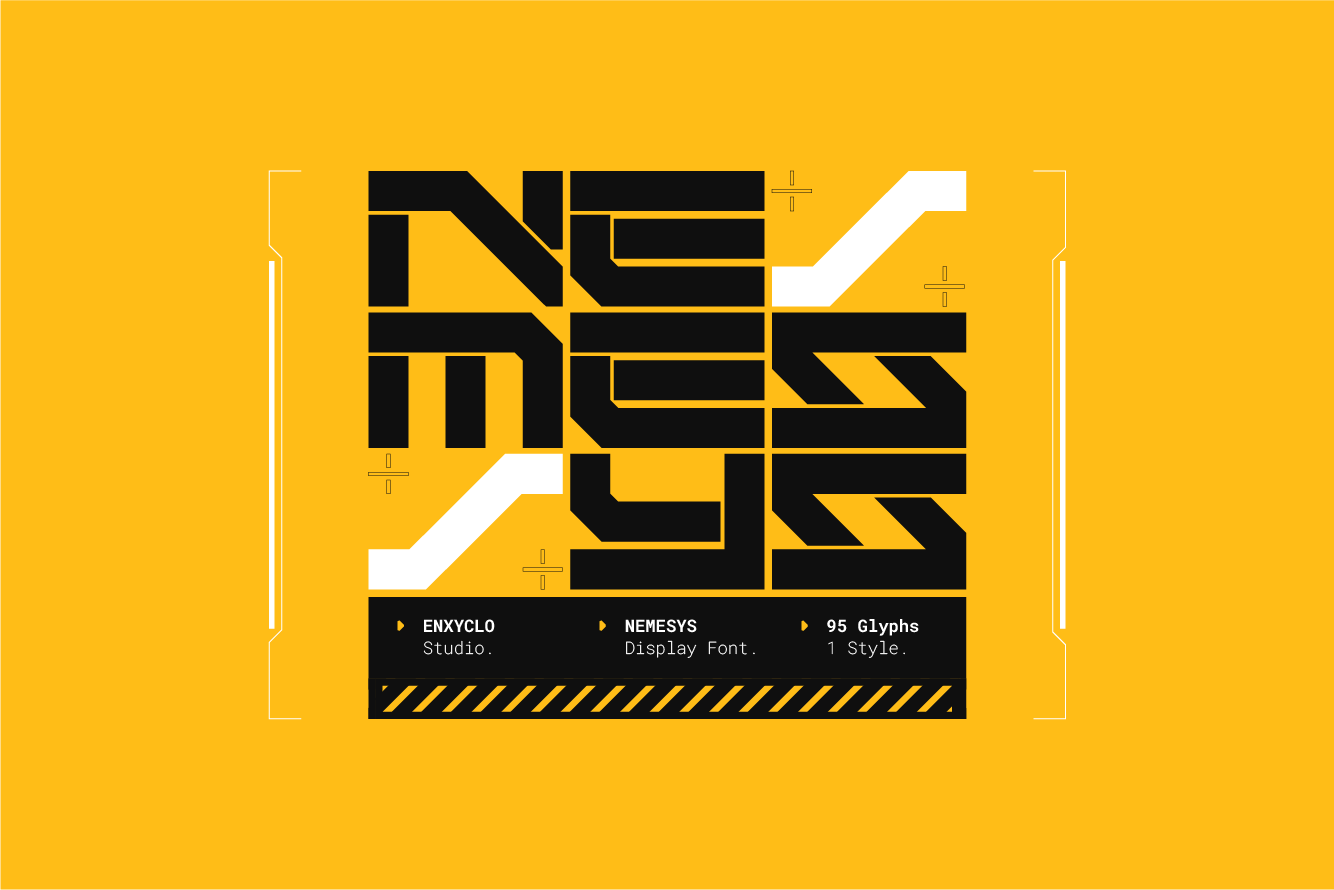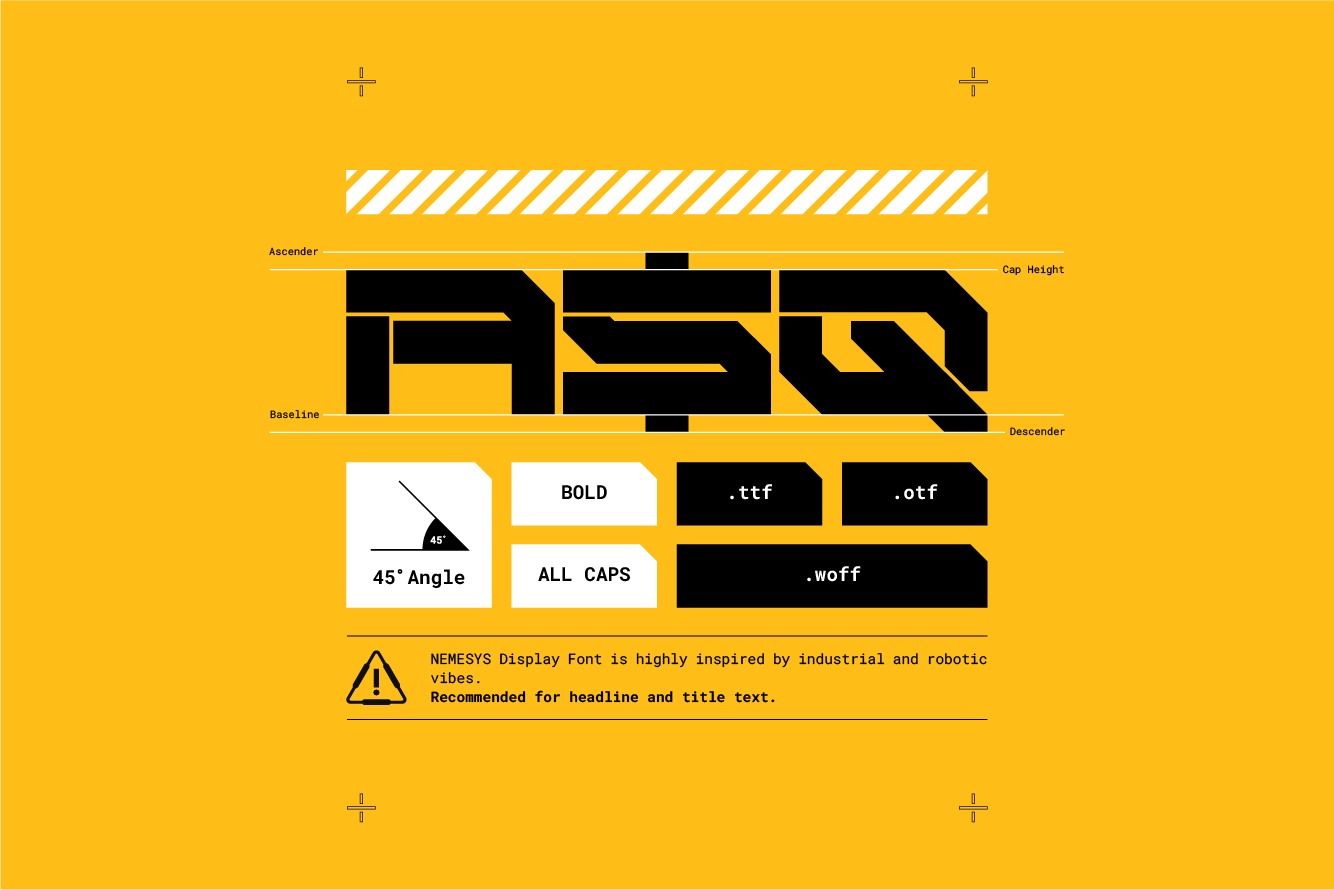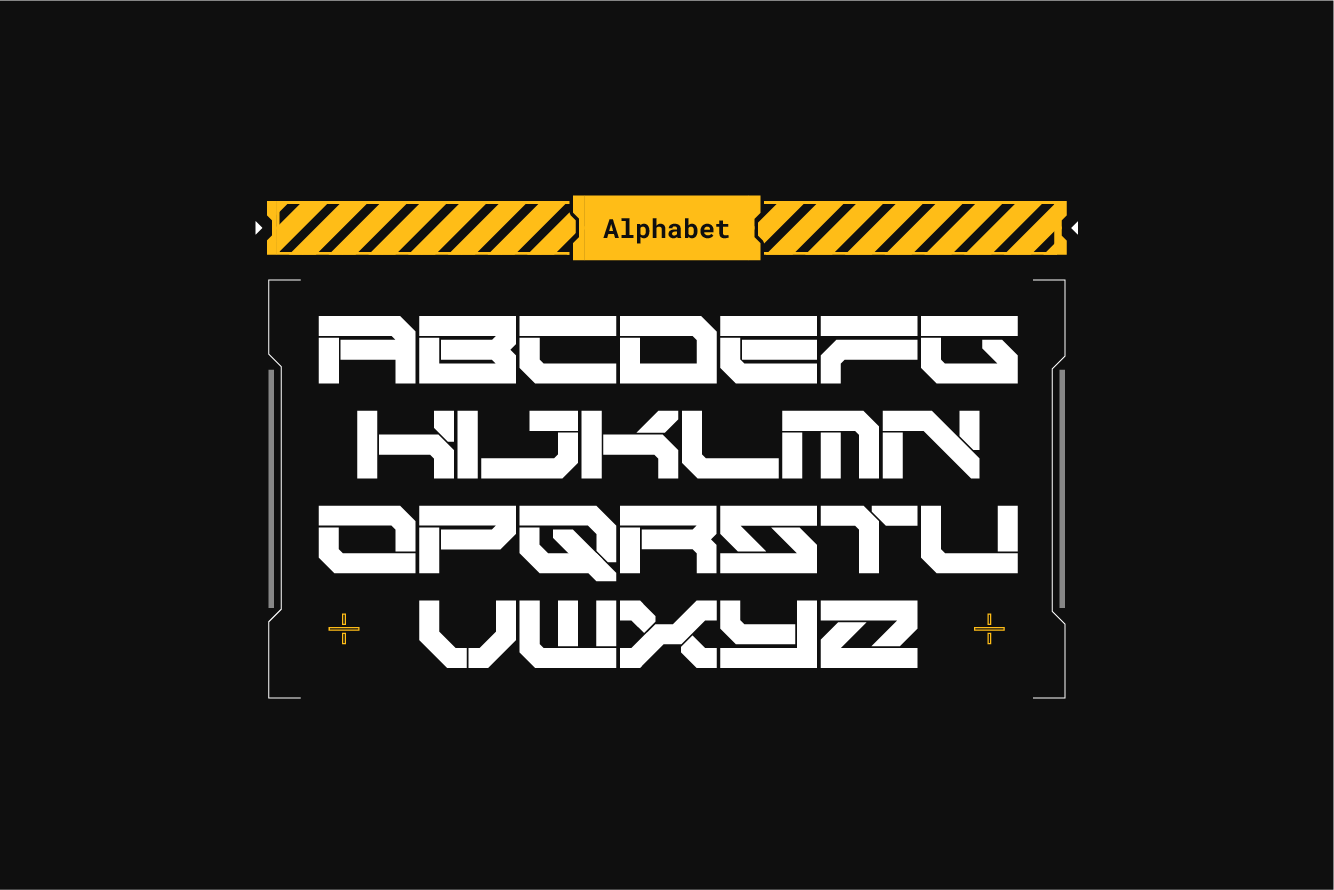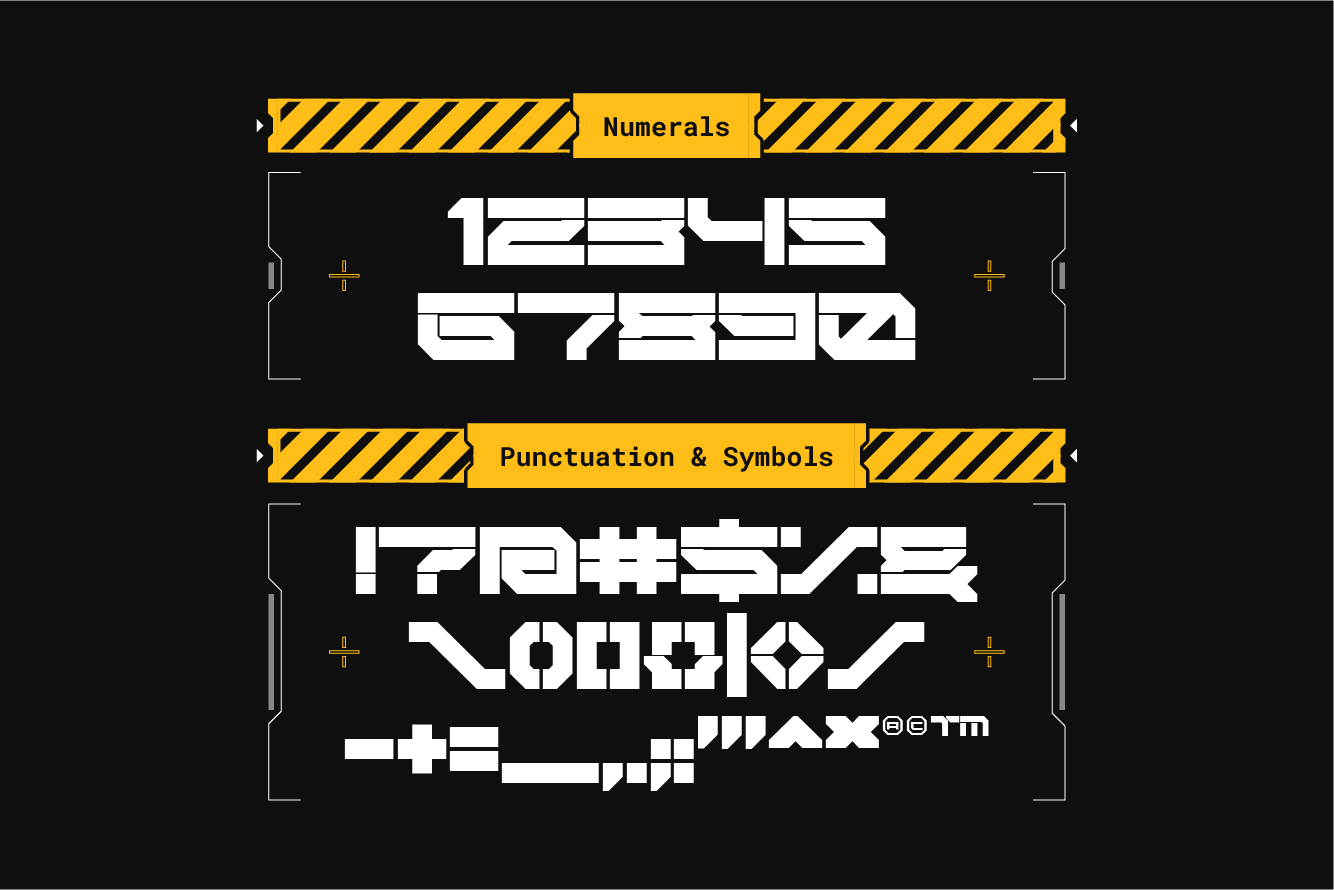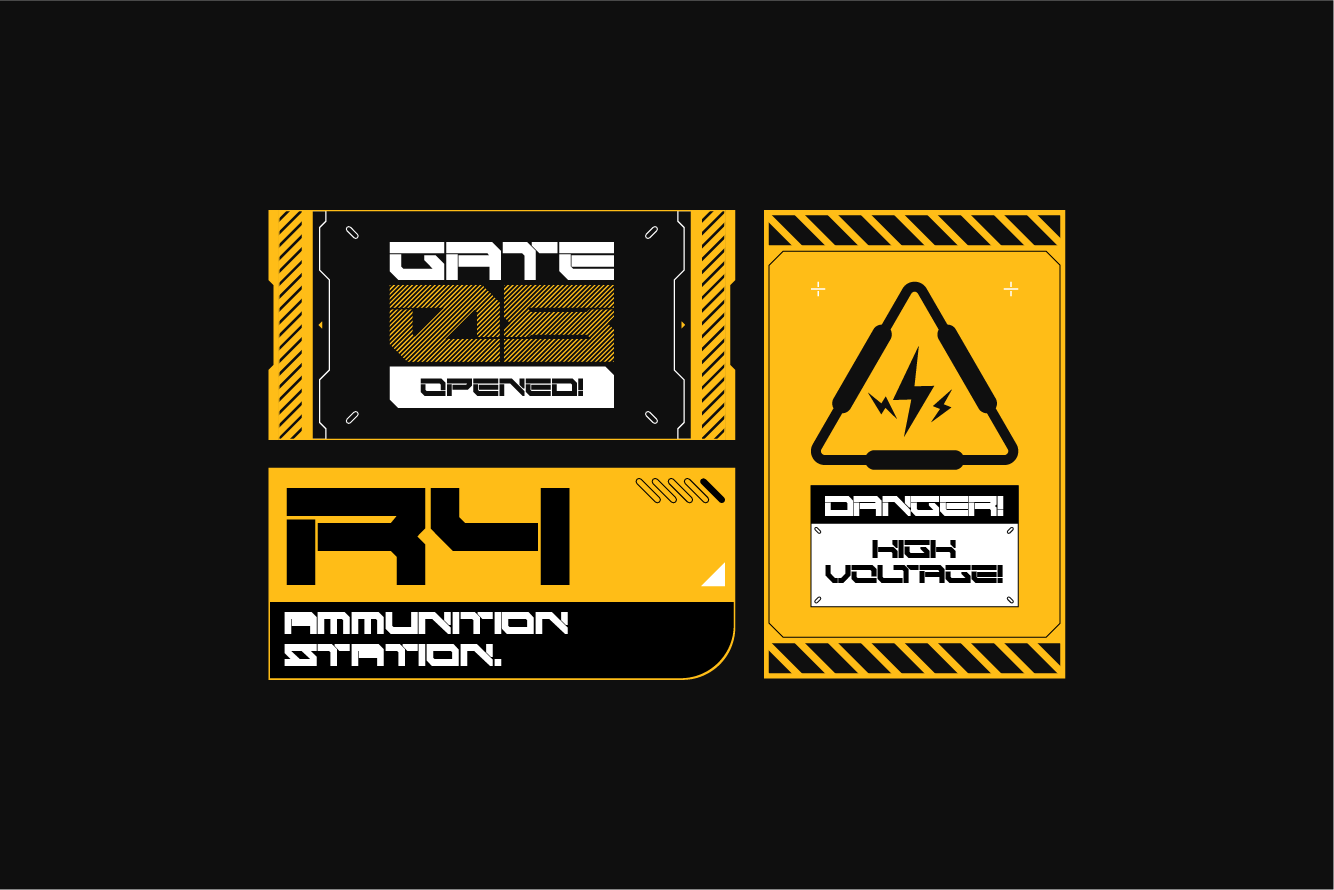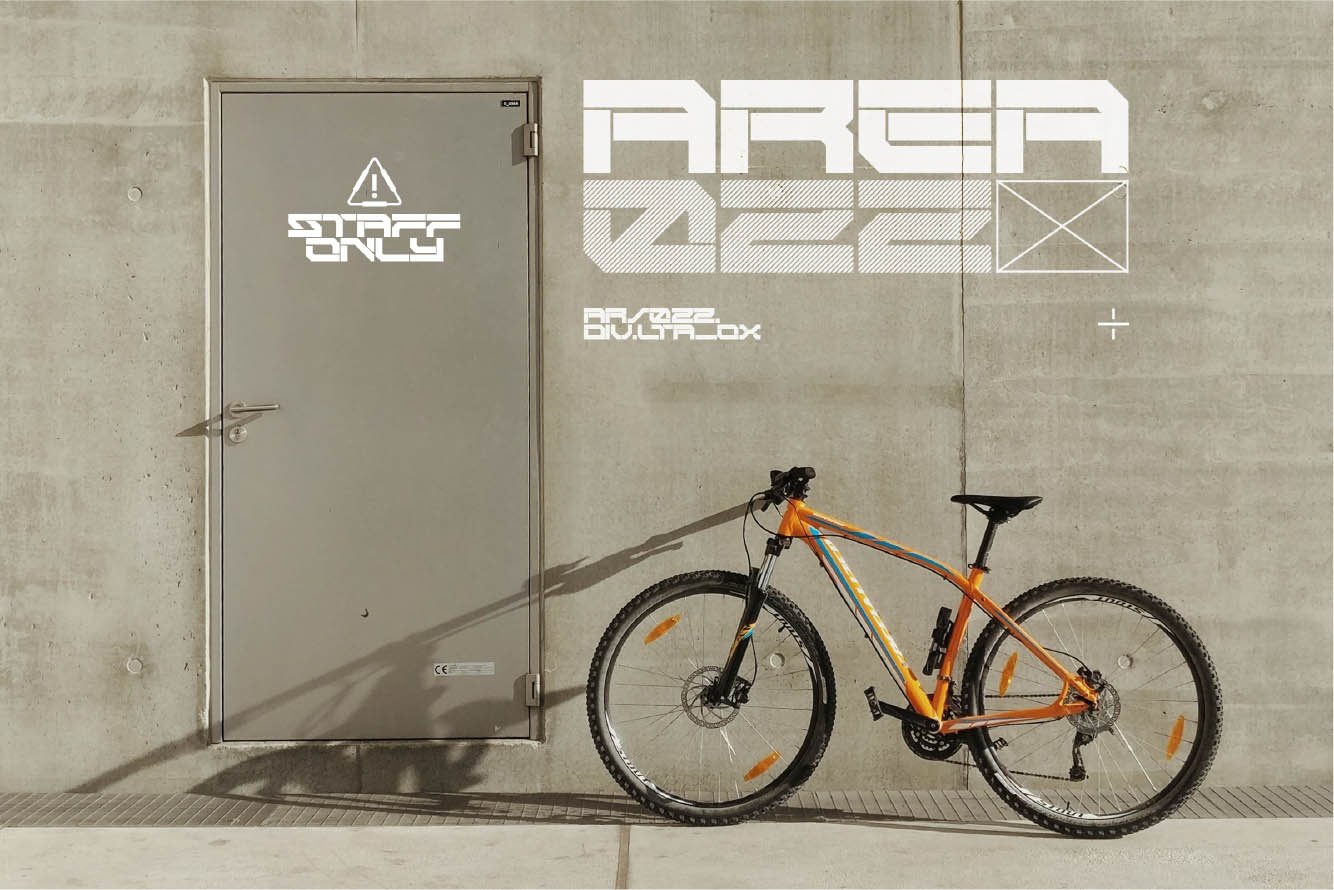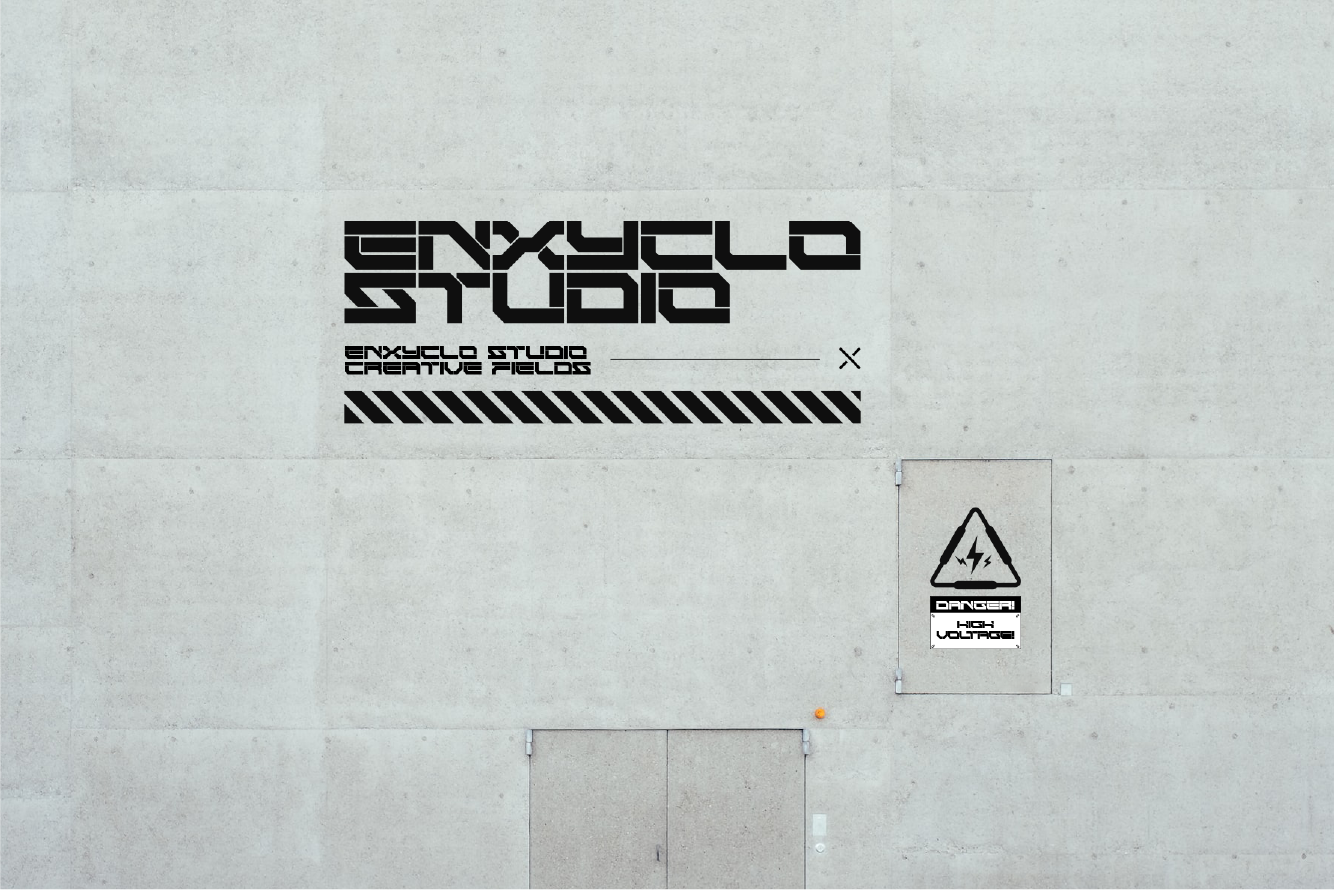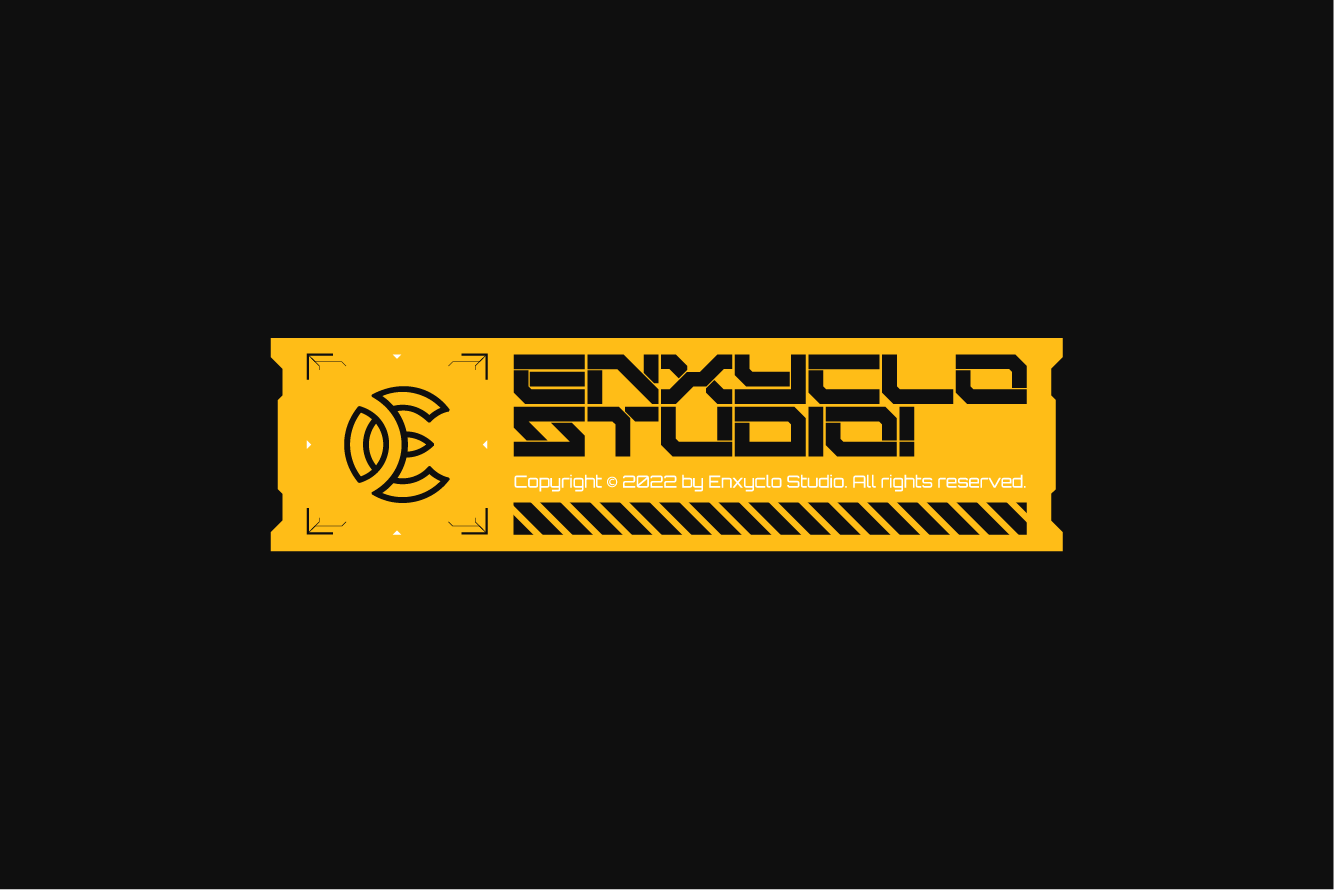
NEMESYS is futuristic display font. Highly inspired by industrial and robotic vibes. The design of typeface will make your project more powerful and inspiring. It is perfect for headline, billboard, magazines, website, titles, poster, branding, thumbnail, t-shirt design, street wear design, and creative logos, or any project that needs futuristic touch. With this beautiful futuristic display font, absolutely you can make your project stand out from the rest. See the previews above to get some inspiration on how to use them.